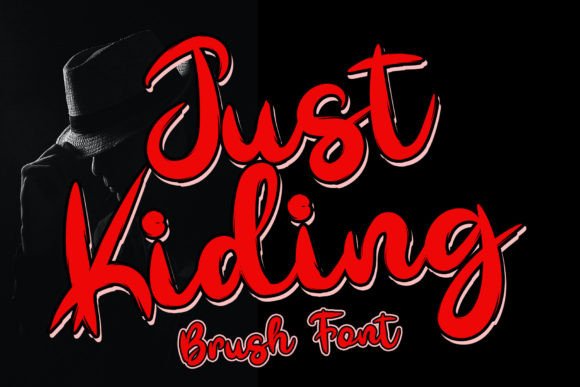
Introducing Just Kiding, the captivating handwritten brush script font that will transform your designs into expressive masterpieces. Feel the energy of each letter, meticulously crafted to mimic the flow of a marker on a board, bringing a lively and authentic touch to your creations.
With Just Kiding, your designs will radiate a personal connection, drawing viewers into your message with its effortless charm. Each character dances across the screen, adding a touch of intrigue and uniqueness to your projects. Whether you're designing greeting cards, invitations, motivational quotes, or any project that demands a touch of the extraordinary, Just Kiding is your perfect companion.
Step into the realm of creativity and let Just Kiding ignite your imagination. Its versatility knows no bounds, allowing you to effortlessly create designs that resonate with your audience. From heartfelt messages to playful invitations, this font weaves a magical spell that captures hearts and minds.
With Just Kiding, you'll discover a font that effortlessly captures the essence of life's special moments. Its bold strokes and graceful curves evoke emotions, adding depth and meaning to your designs. Let Just Kiding carry your message with elegance and authenticity, leaving an unforgettable impression on your audience.
Unlock the power of Just Kiding and embark on a creative journey like never before. Its user-friendly design ensures that even beginners can harness its full potential, while experienced designers will find endless possibilities to explore. Embrace the beauty of handwritten artistry and elevate your designs to new heights with Just Kiding.